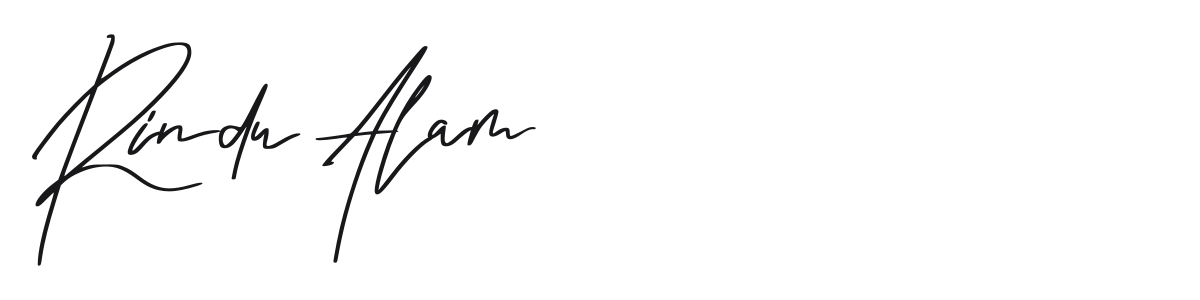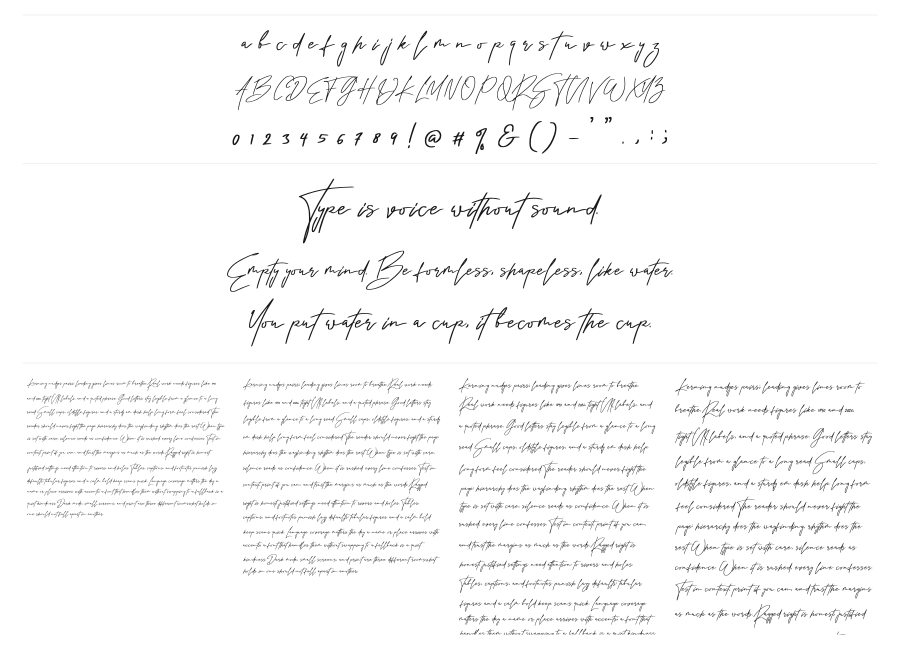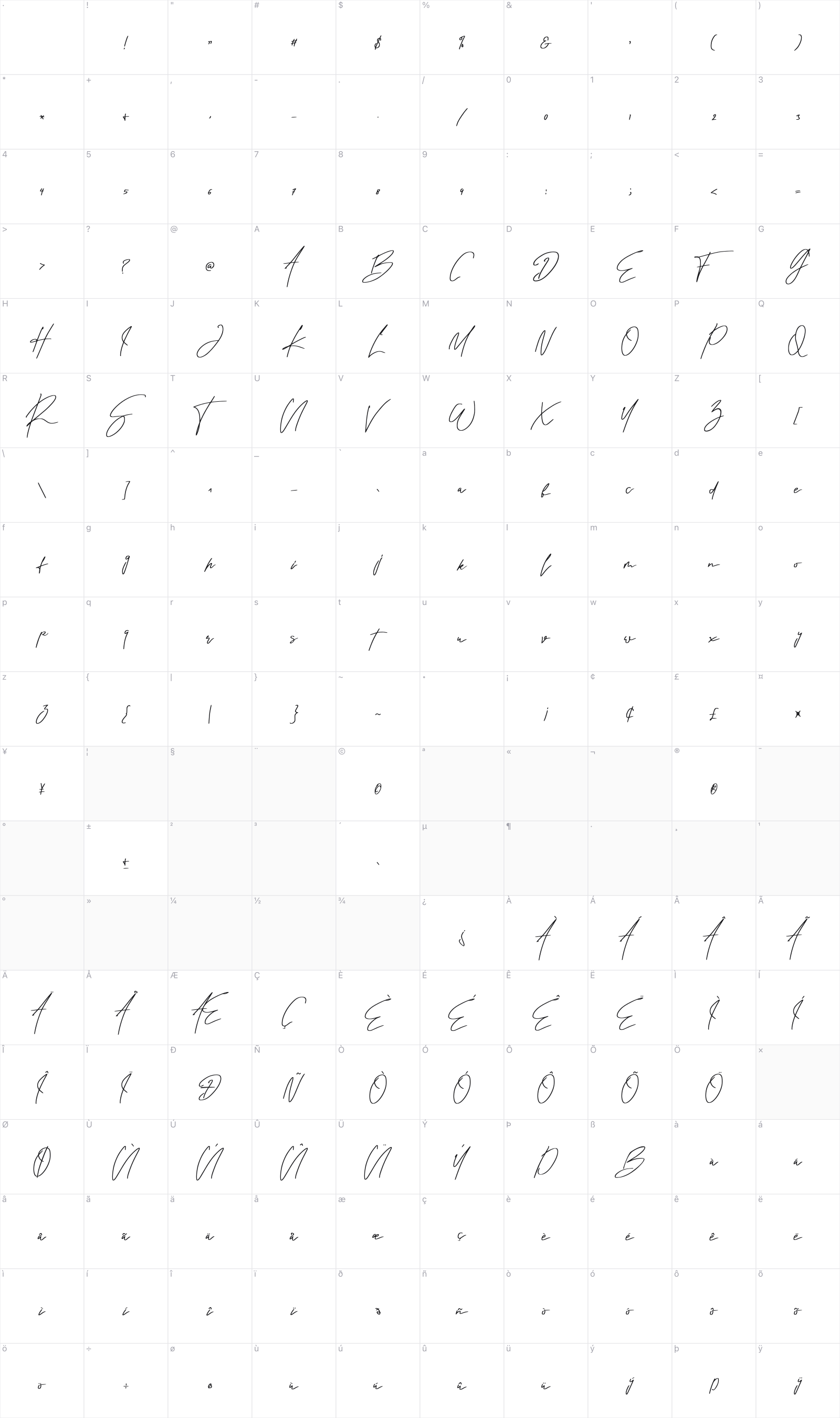
Rindu Alam
Rindu Alam is a relaxed, flowing casual script from Stringlabs with thin, airy strokes and natural baseline bounce. The letters connect loosely with long sweeping tails that give it a spontaneous, handwritten energy. It suits branding and packaging where a warm, organic handcrafted feel is the goal.